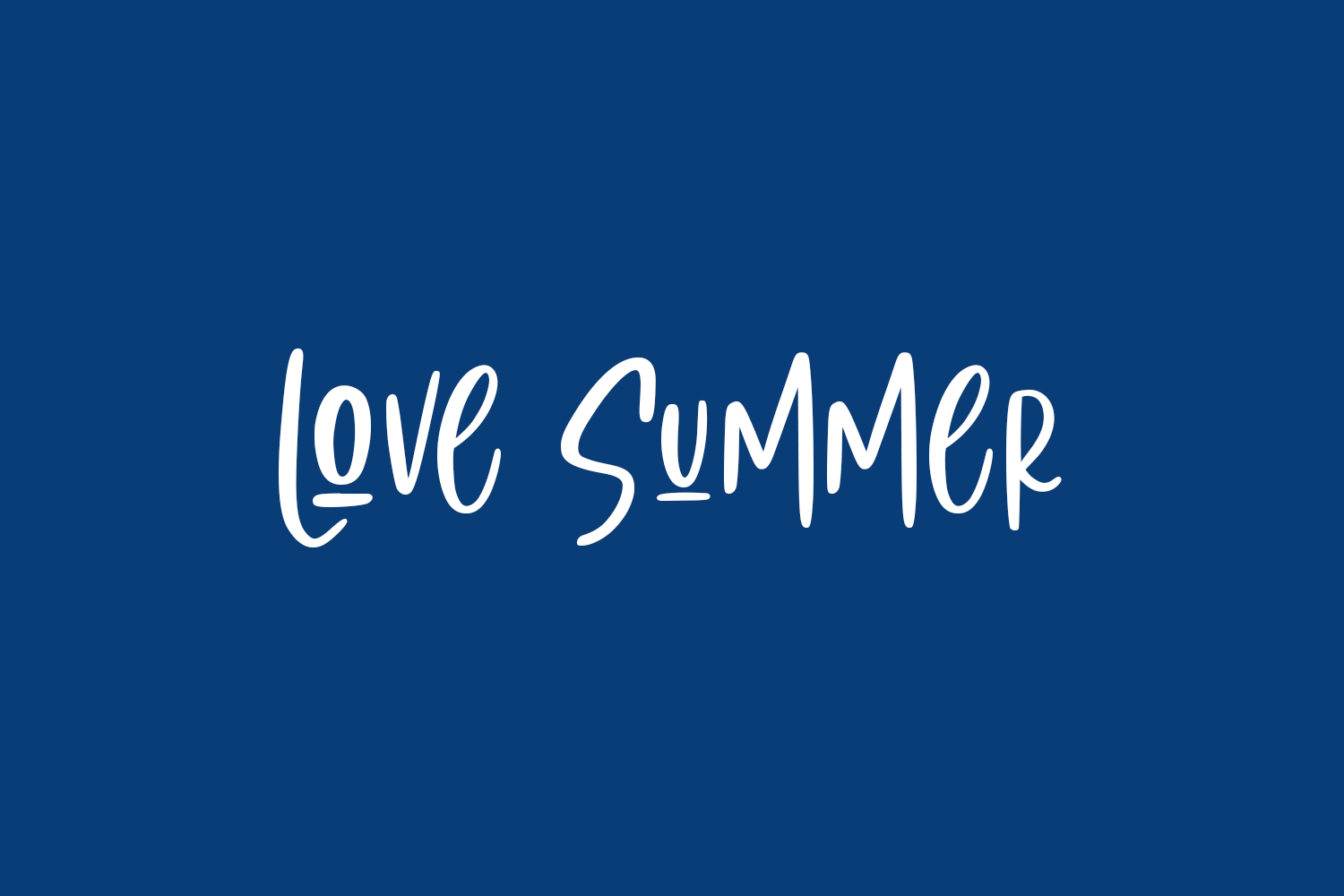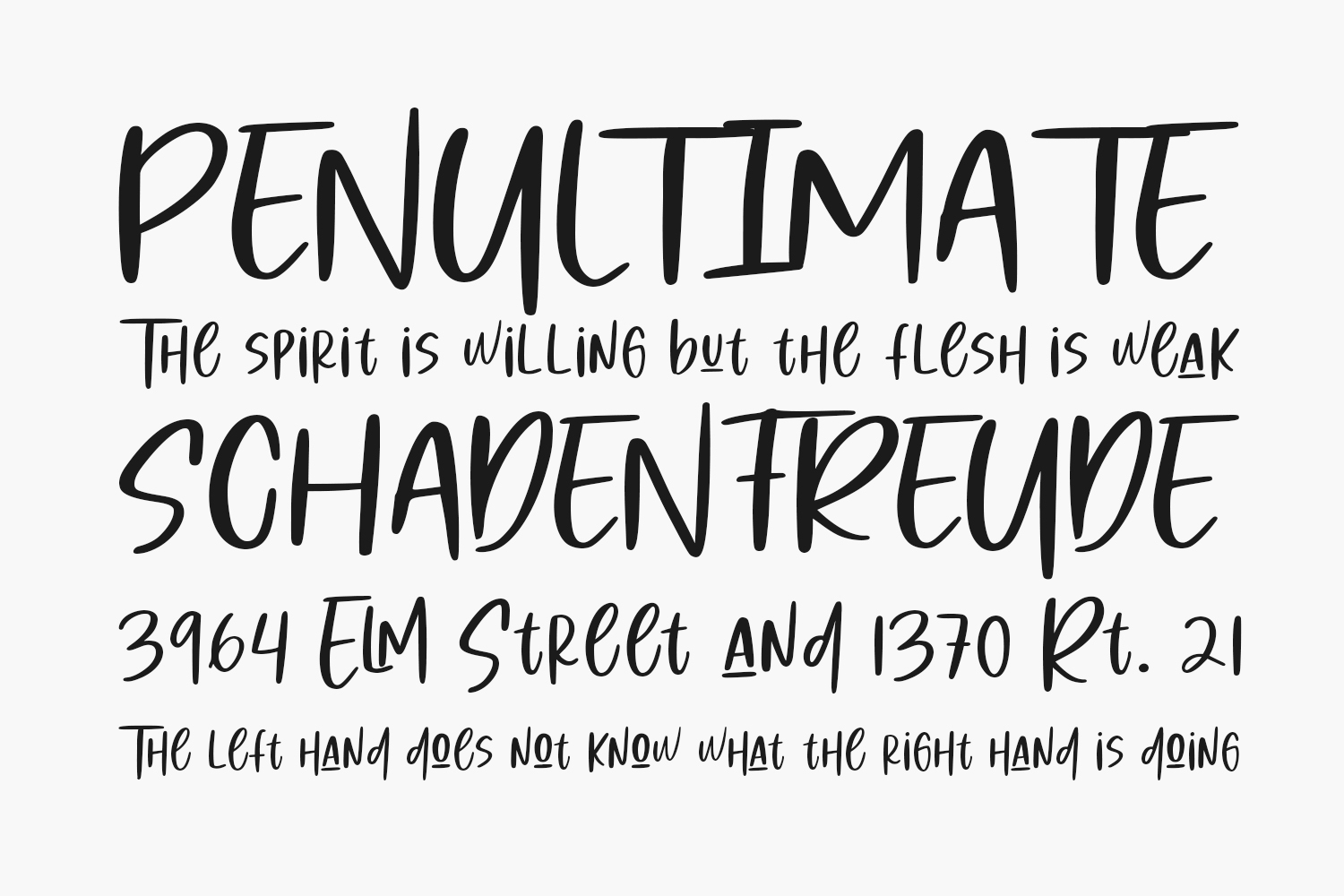
Love Summer Free Font is a cool, relaxed, and friendly handwritten font, that can be used for all chalkboard quotes or teaching material! Its authentic look and feel will add a personal and realistic feel to your designs. Love Summer Free Font was designed by Jimtype Studio and is free for personal use only. Please purchase the full version for commercial use.